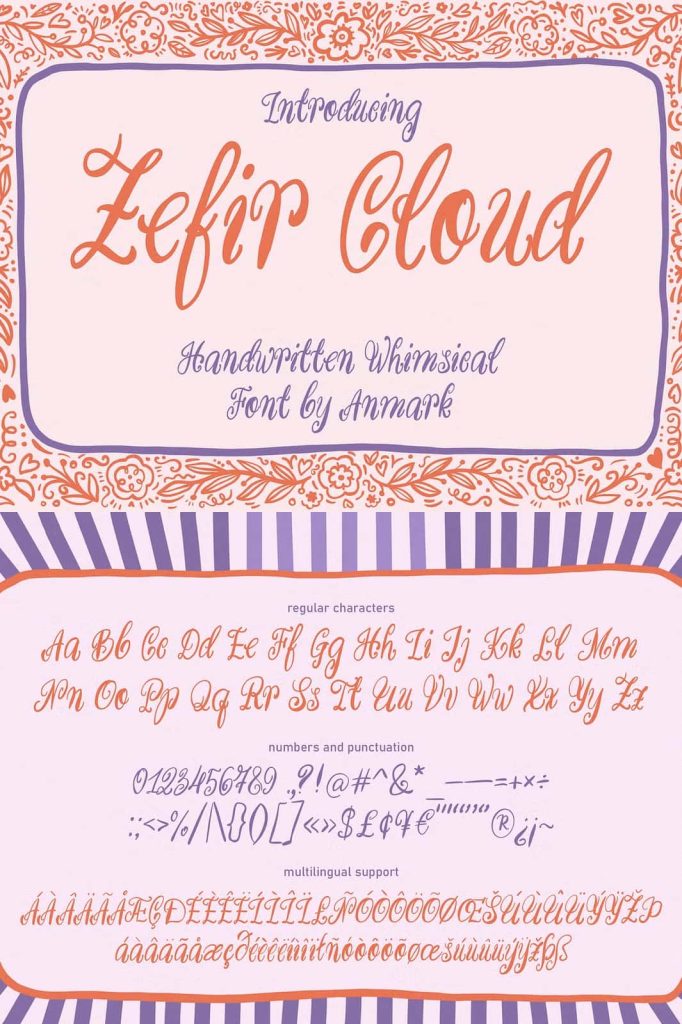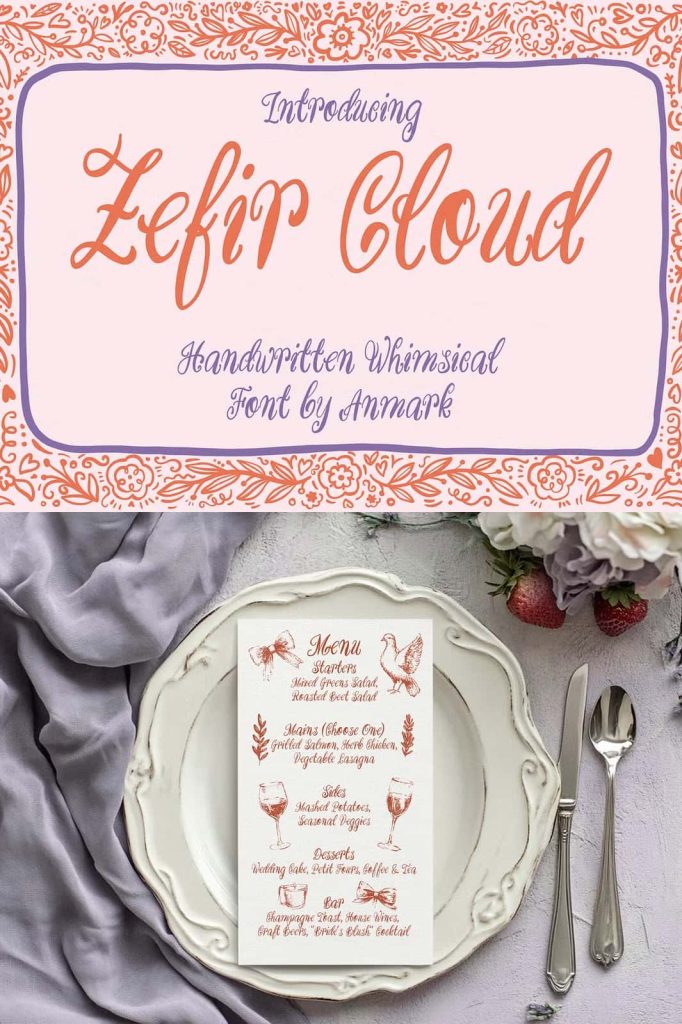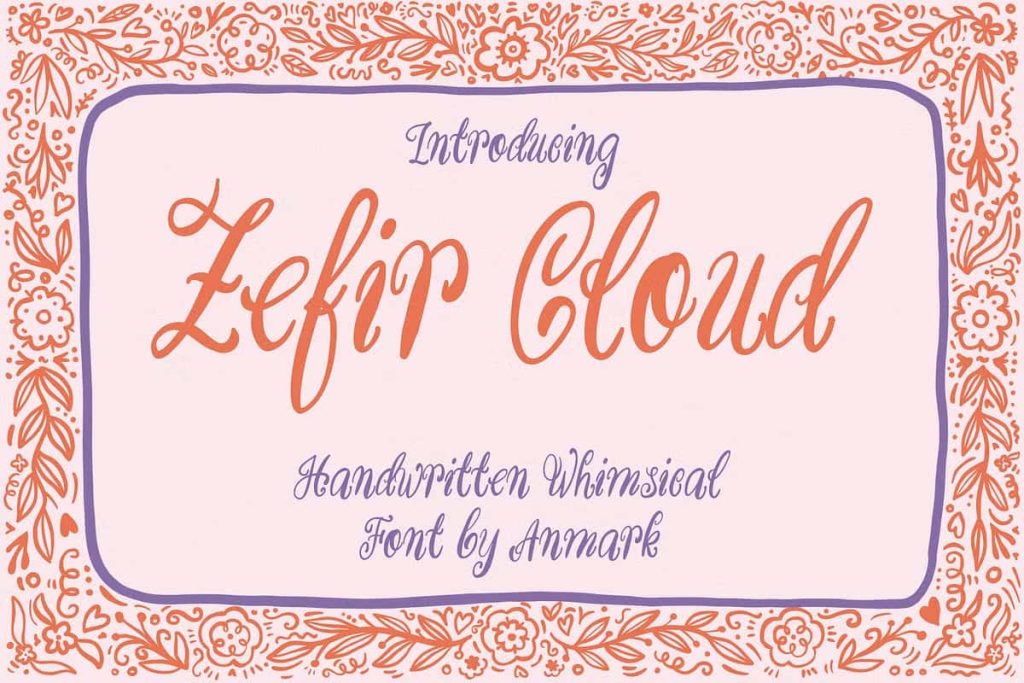
Zefir Cloud is a charming, curly font perfect for all your whimsical wedding stationery needs. With its playful swirls and elegant flourishes, this typeface exudes a sense of romance and enchantment.